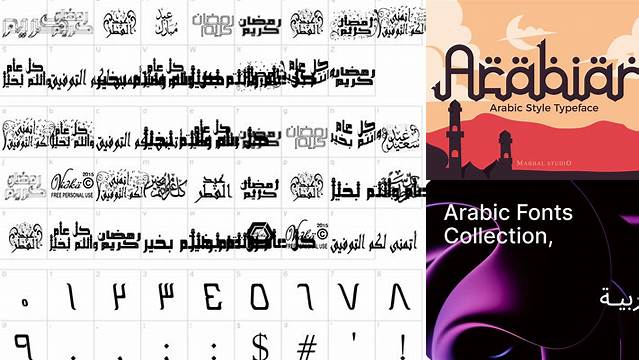
Free Arabic Fonts For MS Word: Download Now!
Hey guys, ever found yourself staring at your Microsoft Word document, needing to add some beautiful Arabic text, but the default fonts just aren't cutting it? You’re probably on the hunt for free Arabic fonts for MS Word download options. Well, you've landed in the right spot! Today, we're diving deep into how you can easily find and download stunning Arabic fonts to elevate your documents, presentations, and creative projects. Whether you're a student working on an Arabic assignment, a designer crafting a flyer, or just someone who appreciates the elegance of Arabic calligraphy, getting the right fonts is key. Let's get this show on the road!
Discovering the Best Free Arabic Fonts for Your Projects
Finding the perfect font can really make or break your document's aesthetic, right? When it comes to Arabic script, there's a whole world of beautiful typography waiting for you. We're not just talking about standard fonts; we're talking about fonts that capture the essence, flow, and artistry of the Arabic language. Imagine your project with elegant Kufic styles, fluid Naskh, or decorative Diwani fonts – the possibilities are endless! We'll explore where to find these gems and how to ensure they're compatible with your MS Word software. So, get ready to give your Arabic text the visual flair it deserves. It's all about making your words look as good as they read, and with the right free Arabic fonts, that's totally achievable. Let's explore some of the most popular and versatile options out there that won't cost you a dime!
Where to Find High-Quality Free Arabic Fonts Online
Unlocking the Beauty of Kufic Arabic Fonts
Let's talk about Kufic fonts, guys! If you're aiming for a strong, geometric, and classic look in your Arabic text, Kufic styles are where it's at. These fonts are derived from ancient Arabic calligraphy and are known for their angular shapes and structured appearance. Think bold lines and a sense of stability. They're perfect for headlines, titles, logos, or any design element where you want to make a powerful statement. Finding free Arabic fonts for MS Word download that capture the authentic Kufic spirit can be a game-changer for your projects. We'll look at sources where you can snag these distinctive fonts and how they can add a touch of historical gravitas to your modern designs. Kufic fonts offer a unique blend of tradition and modernity, making them incredibly versatile for various applications. They command attention and lend an air of sophistication.
Exploring Naskh Arabic Fonts for Everyday Use
Now, if Kufic is about structure, Naskh is all about flow and readability. Naskh is probably the most widely used Arabic script style today, and for good reason! It’s designed for ease of reading in continuous text, making it ideal for books, articles, websites, and pretty much anything you'll be typing out in Arabic on MS Word. When you're searching for free Arabic fonts for MS Word download, you'll find a plethora of Naskh-style fonts. We'll highlight some of the best ones that offer excellent legibility and a smooth, natural appearance. These fonts are your go-to for longer passages of text, ensuring your readers can comfortably digest the information without their eyes getting tired. Think of Naskh as the friendly, approachable font that's always a safe and stylish bet for any Arabic writing task.
The Elegance of Diwani Arabic Fonts
Ready to add some serious flair? Diwani fonts are for when you want your Arabic text to look truly decorative and artistic. These are the calligraphy styles that swirl and loop with incredible intricacy, often used for more formal or artistic purposes like invitations, certificates, or decorative pieces. While they can be complex, finding free Arabic fonts for MS Word download in the Diwani style means you can bring that touch of luxury and artistry to your projects without breaking the bank. We'll discuss how to find these more ornate fonts and when they work best. They're not always the easiest to read in long texts, but for adding a special, elegant touch, they are absolutely unmatched. Get ready to be mesmerized by the curves and flourishes!
Key Considerations When Downloading Free Arabic Fonts
Understanding Font Licensing for Free Downloads
Let's get real about licensing, because this is where things can get a little tricky with free Arabic fonts for MS Word download. Just because a font is available for free doesn't mean you can use it however you want. Most free fonts come with specific licenses. A 'Personal Use' license means you can use it for your own projects – like a school paper or a personal blog. However, if you plan to use the font for a business logo, a product you're selling, or marketing materials, you'll likely need a 'Commercial Use' license. Sometimes, free fonts offer both, but you must check the font's details or accompanying text file. Ignoring this can lead to legal trouble down the line. We'll break down the common license types and how to find this information easily on font download sites, so you can keep your projects legal and ethical.
Ensuring Font Quality and Completeness
When you're downloading free Arabic fonts for MS Word download, you want them to actually work well, right? A font might look amazing in the preview, but if it's missing essential Arabic letters, diacritical marks (like fatha, damma, kasra), or ligatures, it’s pretty much useless for serious writing. We'll talk about how to spot high-quality free Arabic fonts. Look for previews that show a full range of characters. Reputable font sites often provide character maps. Also, pay attention to reviews or comments from other users – they often point out any issues. Good fonts have consistent stroke widths, balanced letterforms, and proper kerning (the spacing between letters), especially important for the connecting nature of Arabic script. Investing a little time in checking these details ensures your downloaded fonts will be a pleasure, not a pain, to use.
Compatible Font File Formats: TTF vs. OTF
Final Thoughts on Maximizing Free Arabic Font Downloads
So there you have it, guys! A comprehensive guide to finding, downloading, and using free Arabic fonts for MS Word download. Remember, the key is to explore reputable sources, always check the licensing, prioritize quality and readability, and don't be afraid to experiment! With the right fonts, your Microsoft Word documents can go from ordinary to extraordinary. Whether you're working on a simple letter or a complex design, the elegance and beauty of Arabic typography are at your fingertips, completely free. Happy font hunting, and happy creating!